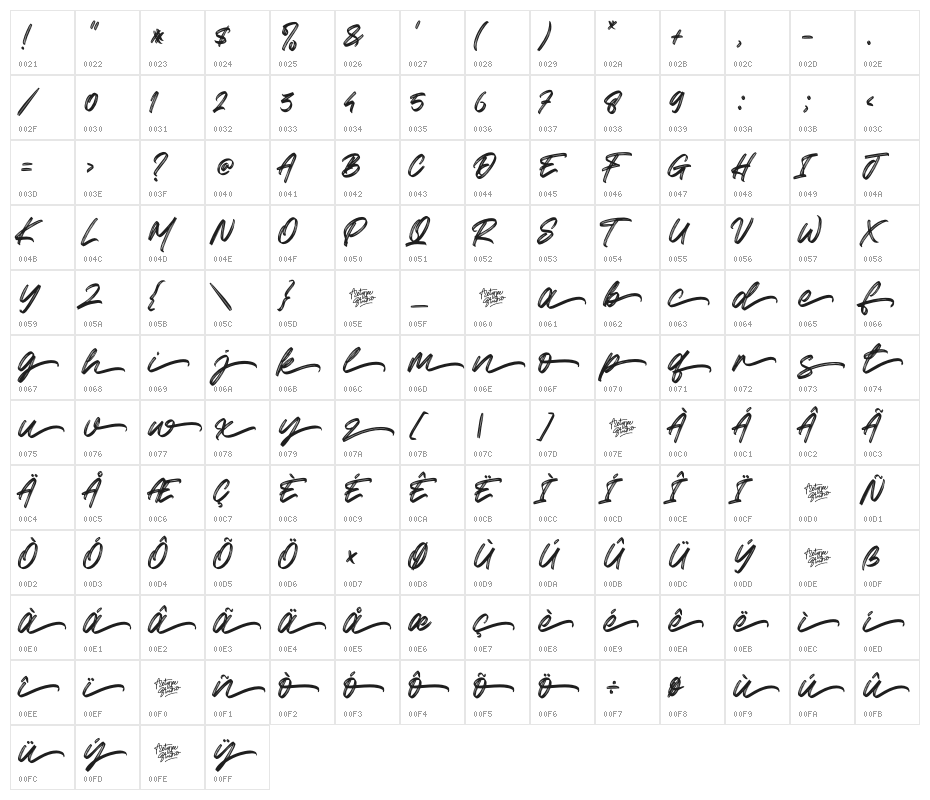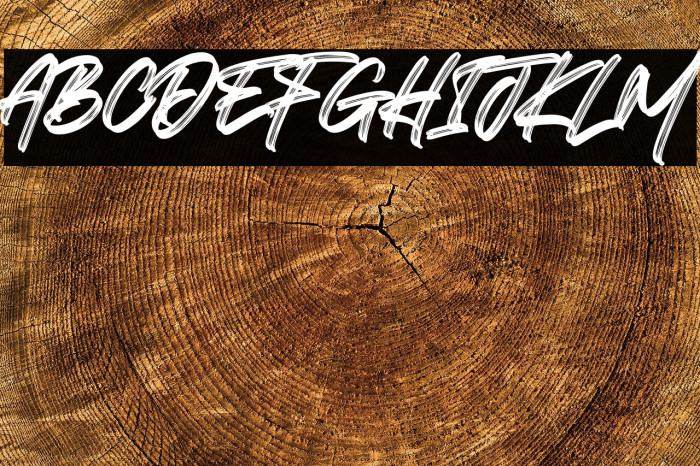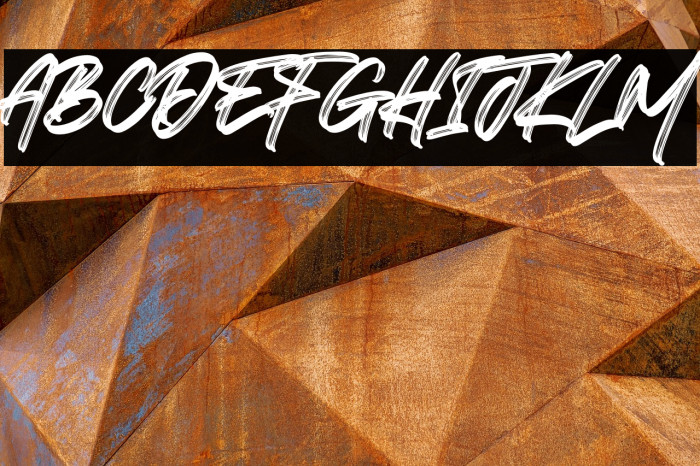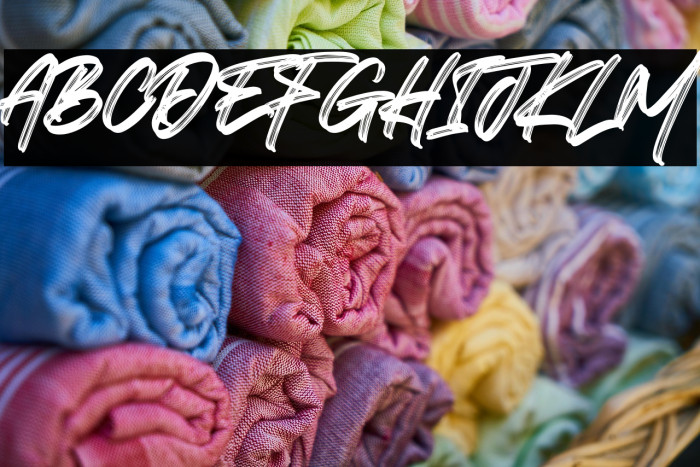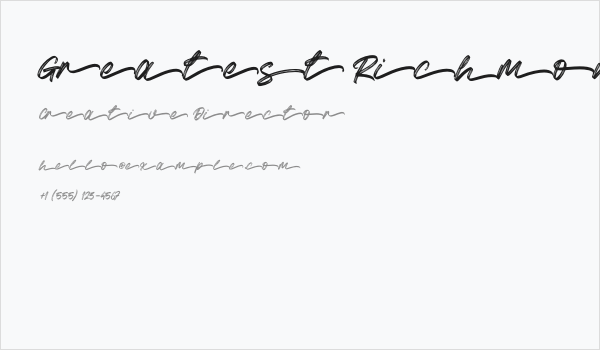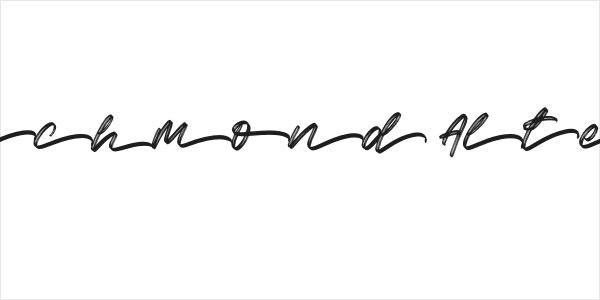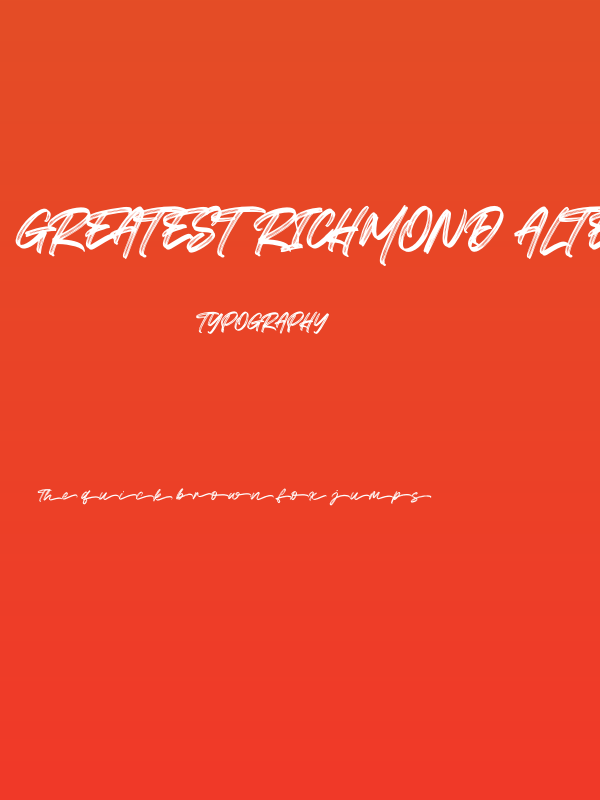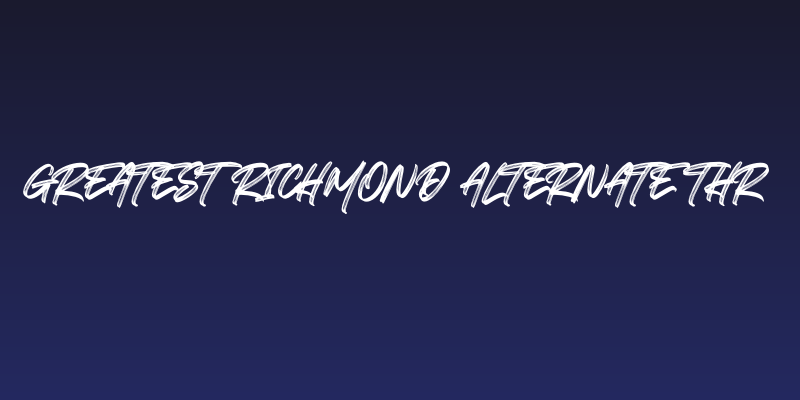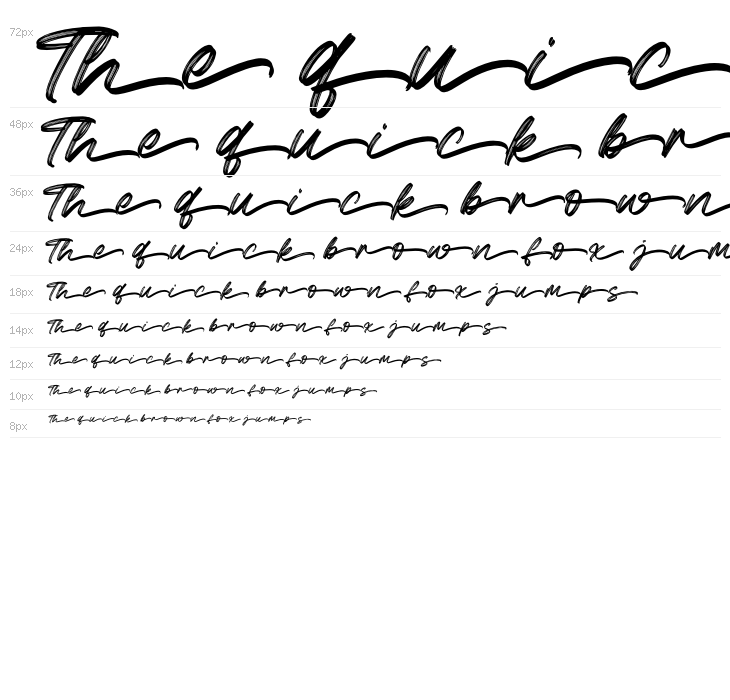
Greatest Richmond Alternate Thr Font
Greatest Richmond Alternate Thr Description
This font exudes a bold and dynamic energy with its brush-like strokes and expressive character. The uppercase letters are particularly striking, featuring thick, sweeping lines that convey a sense of movement and flair. The lowercase letters maintain a more connected, cursive style, offering a nice contrast to the uppercase. Numbers and special characters follow the same bold, artistic style, making them stand out. The overall design is reminiscent of hand-painted signage, perfect for projects that require a personal, artistic touch.
| Overall Style | Modern, Artistic |
| Proposed Projects | Ideal for branding, posters, and creative projects that require a bold, artistic touch. |